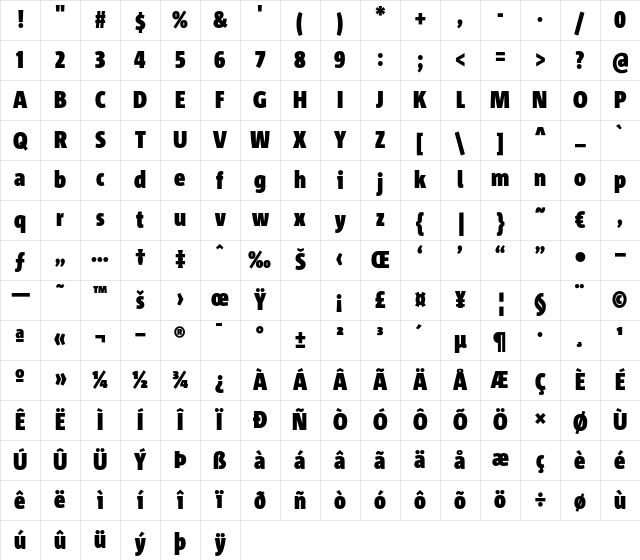
Corpid Cd LF Black Free Font
Corpid Cd LF Black
Design Context for Corpid Cd LF
Corpid Cd LF is a composed and adaptable typeface that performs quietly and consistently across a wide range of design contexts.
Pro Tip: Use Corpid Cd LF in both headline and body roles to test its range before committing to a single application.